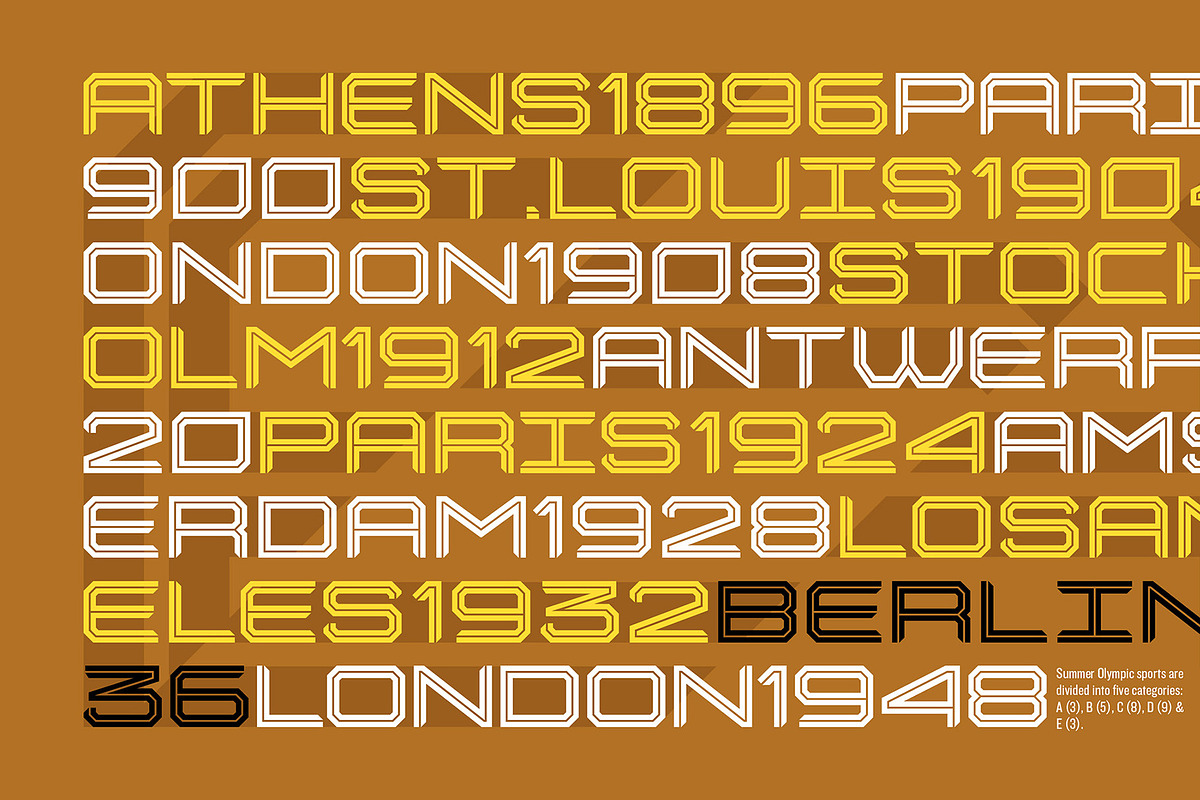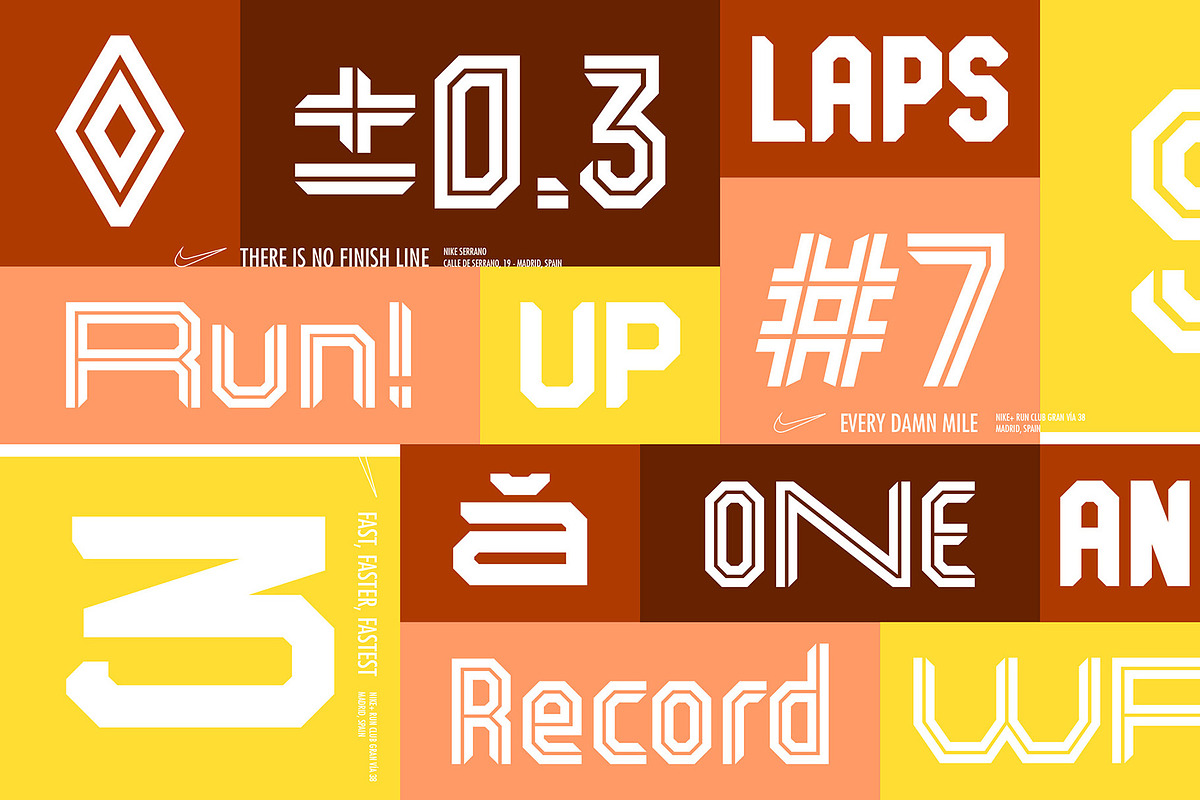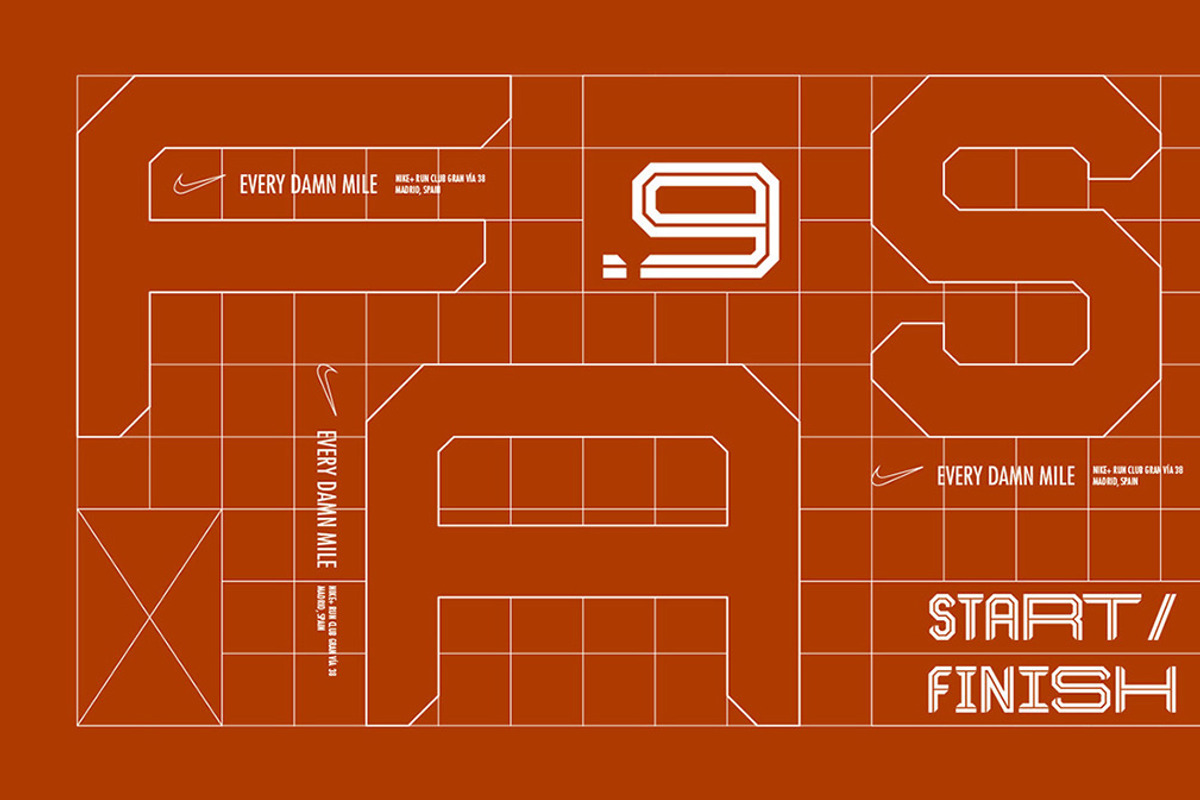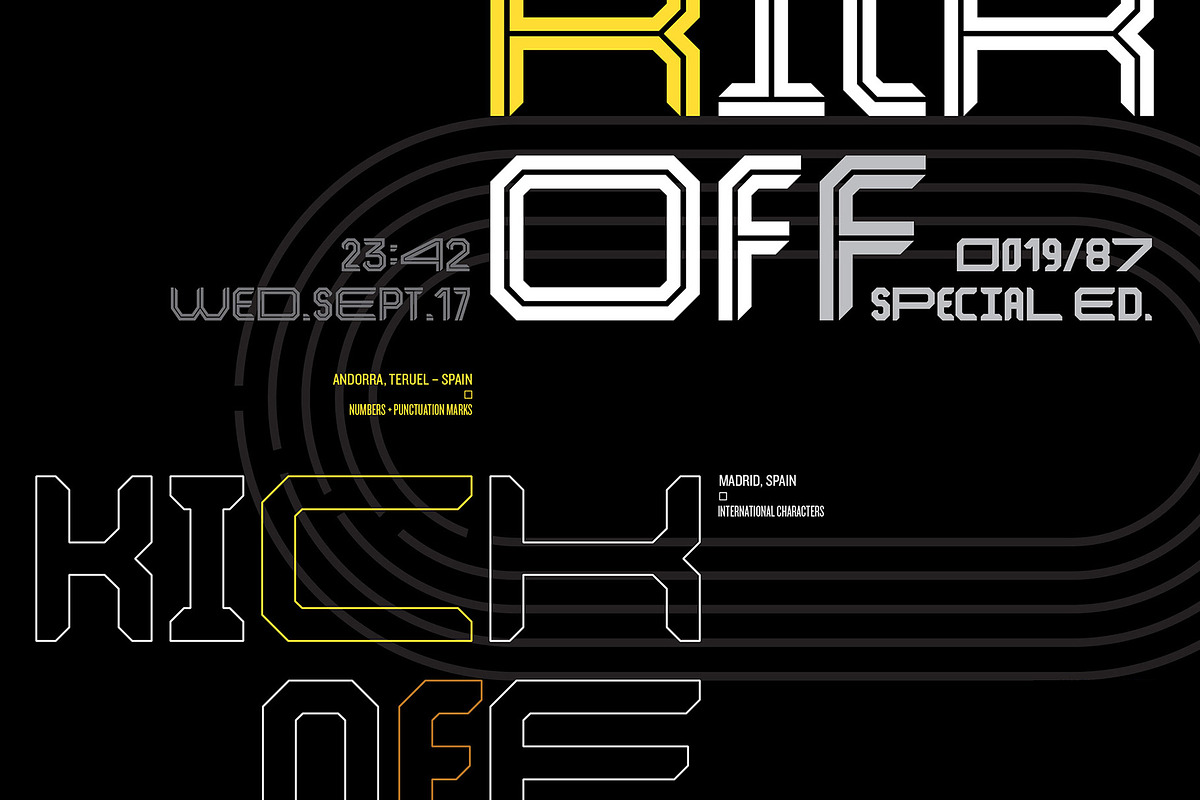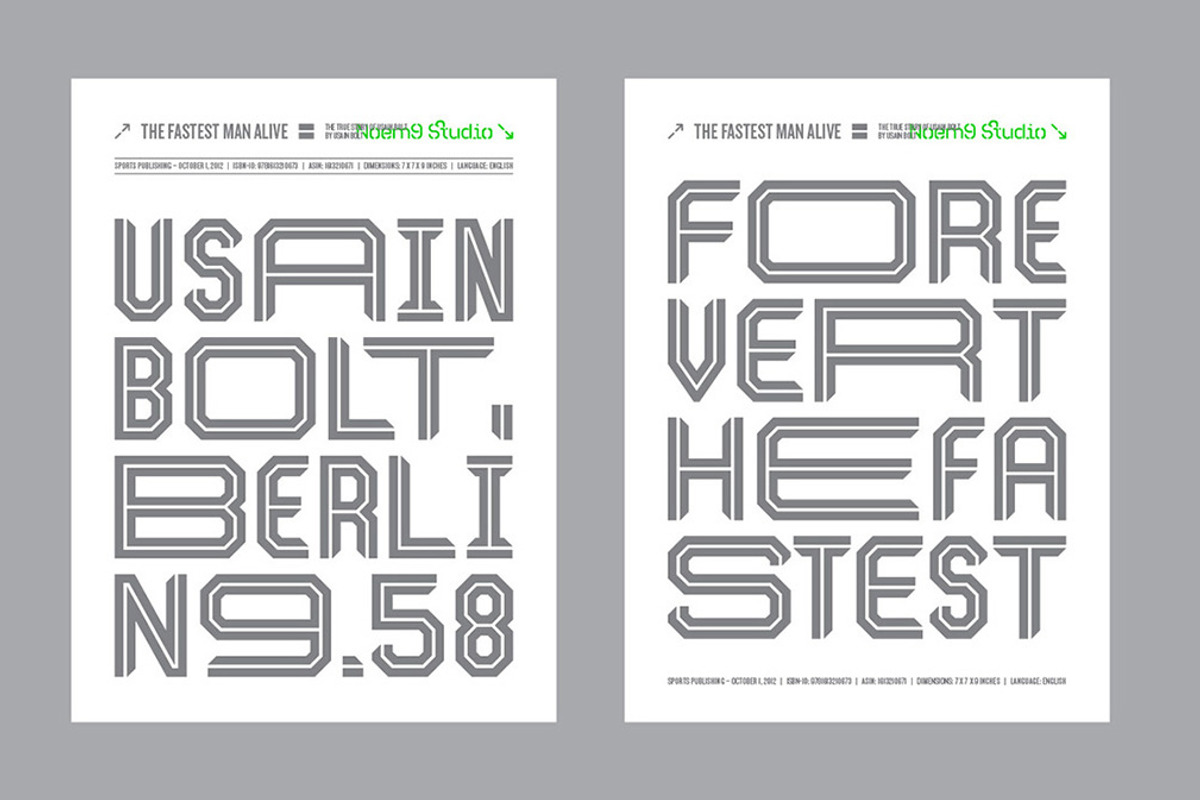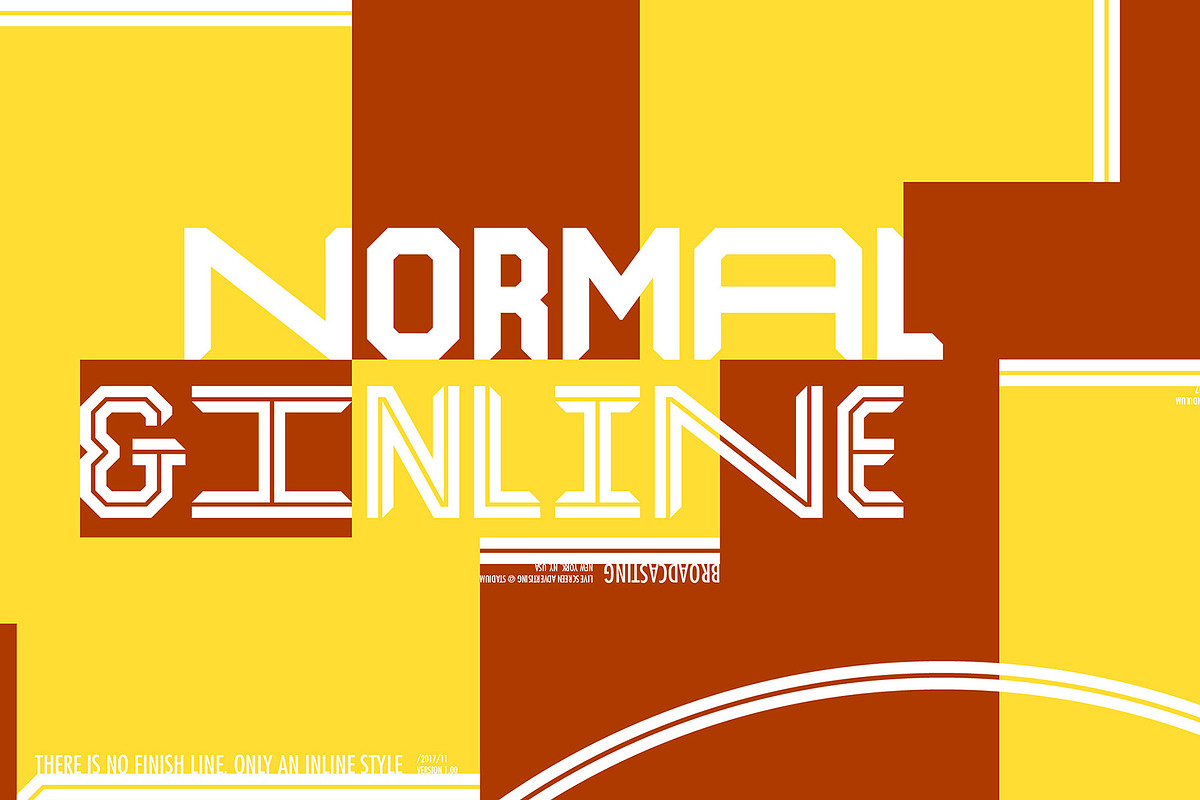
Kickoff Typeface
Kickoff is a display typeface with a geometric structure inspired by Sports graphics of the 70s. Its potential is increased with Normal & Inline styles which offer different moods. It comes in 3 different widths: Condensed, Regular & Wide that you can select depending on your needs.
◊ More than 500 Glyphs ◊ 2 Different Styles (Normal & Inline) ◊ 3 Different Widths (Condensed, Regular & Wide) ◊ International Characters